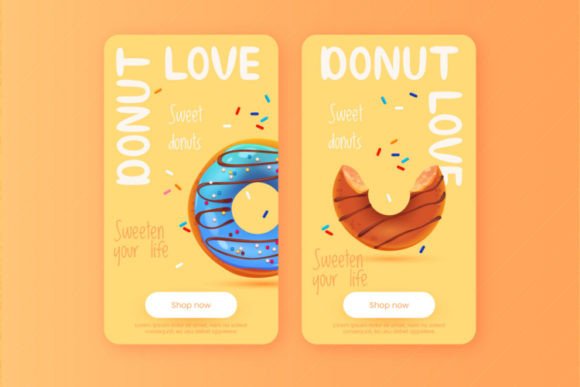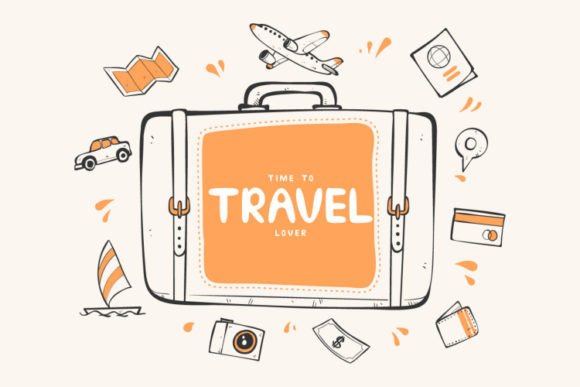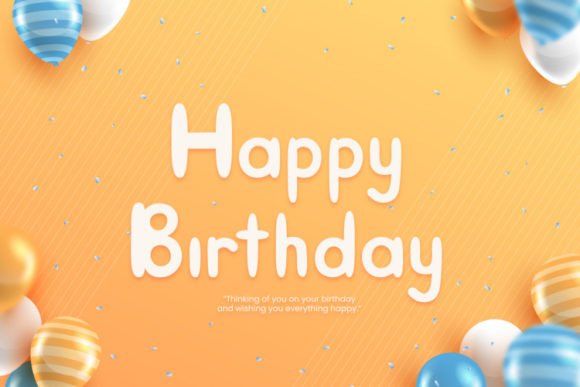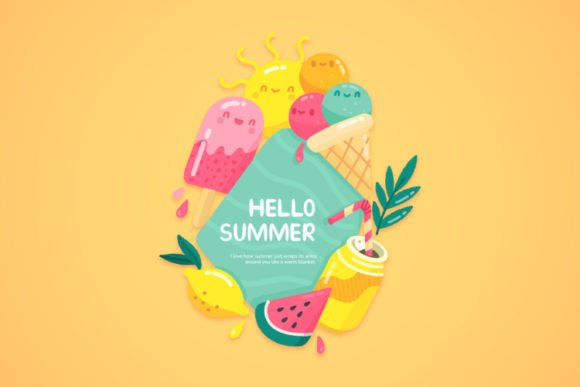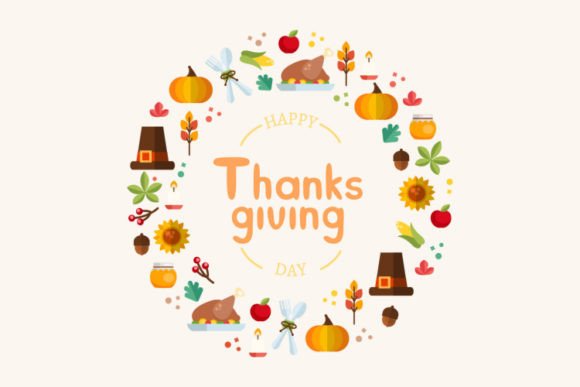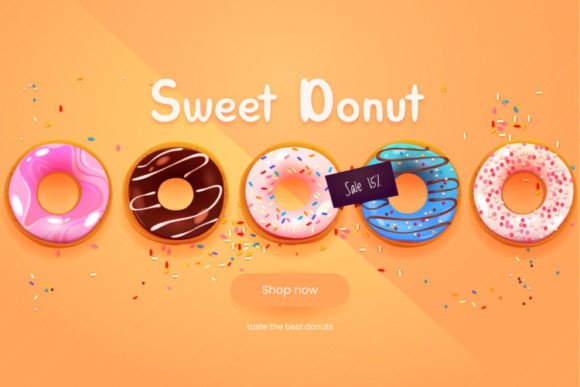
Doughnuts Font: The Cute and Friendly Handwritten Font for Your Creative Projects
Are you looking for a font that can add a touch of warmth and personality to your designs? Look no further than the Doughnuts Font! This adorable handwritten font is designed to bring a smile to your face and make your creative projects stand out. In this article, we’ll dive into the features and benefits of the Doughnuts Font, and explore how it can elevate your designs to the next level.
A Cute and Friendly Handwritten Font
The Doughnuts Font is a masterfully designed handwritten font that exudes a sense of friendliness and approachability. Its cute and playful letterforms are perfect for adding a touch of whimsy to your designs, making it ideal for projects that require a personal and relatable feel. Whether you’re working on a branding project, a craft, or a digital product, this font is sure to bring a sense of joy and warmth to your design.
Key Features of the Doughnuts Font
- Handwritten with love: Each letterform is carefully crafted to create a sense of human touch and personality.
- Cute and playful: The font’s playful curves and lines make it perfect for designs that require a touch of whimsy.
- Highly legible: Despite its playful nature, the Doughnuts Font remains highly legible, making it suitable for body text and headlines.
- Versatile: This font can be used for a wide range of projects, from branding and advertising to crafting and digital products.
Benefits of Using the Doughnuts Font
So, why choose the Doughnuts Font for your creative projects? Here are just a few benefits of using this amazing font:
- Adds personality to your designs: The Doughnuts Font brings a unique and playful touch to your designs, setting them apart from more traditional fonts.
- Evokes emotions: The font’s friendly and approachable nature can help create an emotional connection with your audience.
- Perfect for creative projects: Whether you’re a designer, crafter, or digital product creator, this font is ideal for adding a touch of personality to your work.
- Easily readable: The font’s high legibility makes it suitable for use in a variety of contexts, from digital products to print materials.
Using the Doughnuts Font in Your Designs
So, how can you use the Doughnuts Font in your designs? Here are a few ideas to get you started:
- Branding and logos: Use the Doughnuts Font to create a unique and memorable brand identity.
- Digital products: Add a touch of personality to your digital products, such as ebooks, printables, and planners.
- Crafting and DIY projects: Use the font to create cute and personalized labels, cards, and other crafty projects.
- Advertising and marketing: Use the font to add a playful touch to your advertising and marketing materials.
| Font Name | Doughnuts Font |
| Author | inferno.type3 |
In conclusion, the Doughnuts Font is a cute and friendly handwritten font that’s perfect for adding a touch of personality to your designs. With its playful curves, high legibility, and versatility, this font is sure to become a favorite in your design toolkit. Whether you’re a designer, crafter, or digital product creator, the Doughnuts Font is a great choice for any project that requires a personal and relatable feel. So why not give it a try and see how it can elevate your designs to the next level?